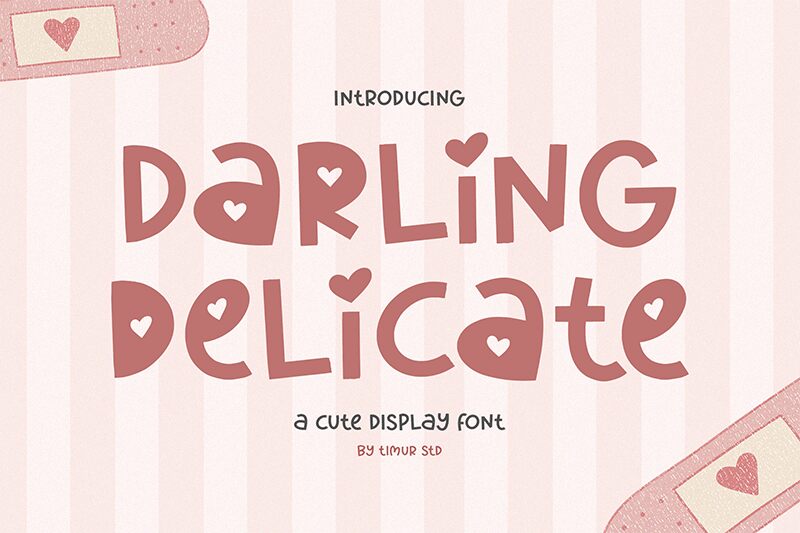
Darling Delicate font by Timur Type is a free font presented in a carefree, casual style. Exhibiting a welcoming and informal character, this is a font that can bring endearing and friendly attributes to your design. A hint of playfulness in this script can never go unnoticed.
Such a typography design suits designs for packaging, labels, stationery, journal decorations, social media posts, and video editing. In addition, you can present it in branding, logo design, product design, web, and mobile UI.
Darling Delicate is a cute display font introduced by Timurtype Studio. This font embodies a charming and adorable aesthetic that adds a playful touch to any design. With delightful and whimsical letterforms, Darling Delicate features rounded edges, sweet symbols, and endearing embellishments. Its cheerful and lovable style makes it perfect for creating eye-catching headings, logos, and titles that evoke warmth and friendliness.
Whether used in children's books, branding projects, or social media graphics, this free font brings a sense of joy and innocence to your overall design. Embrace the cuteness and create designs that are irresistibly charming and inviting with Darling Delicate.